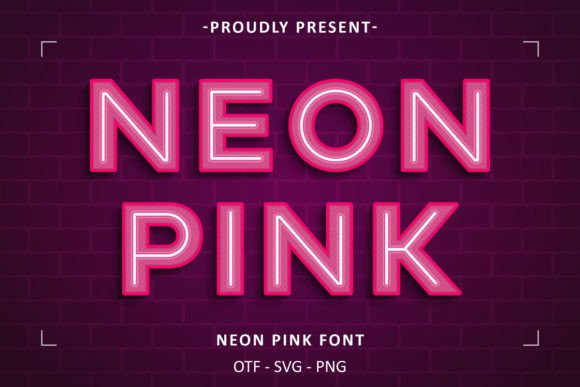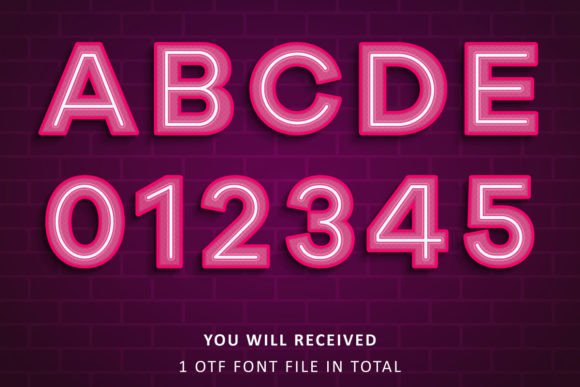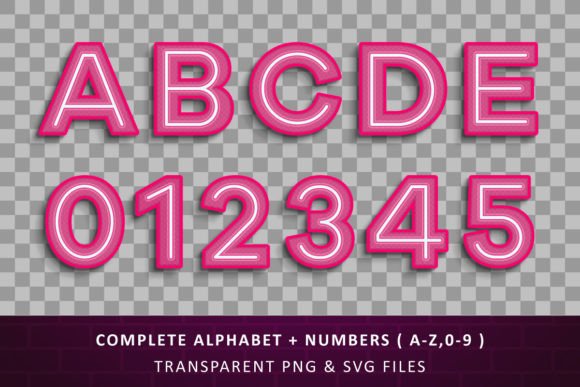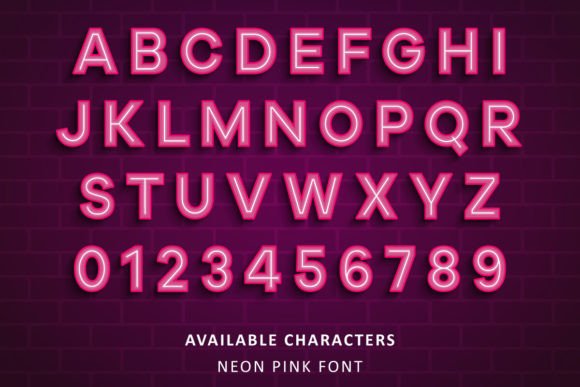
Neon Pink Font
About the Neon Pink Font
Make a bold statement with Neon Pink Font, a powerful and memorable font. Introducing “Neon Pink Font” – This charming font was created with inspiration from pink neon bulbs. Its vivid hues and sleek letterforms capture the essence of urban neon signs, creating a visually striking and modern aesthetic.
Neon Pink Font’s bold, playful energy makes it ideal for headlines, short impactful statements, and branding applications where a vibrant, modern aesthetic is desired. It works exceptionally well for posters, social media graphics, and packaging for products targeting a younger, trend-conscious audience. However, its highly stylized forms are not suitable for body text or extended reading; legibility suffers at smaller sizes.
Pairing Neon Pink Font with a clean sans-serif like Helvetica Neue for body copy provides excellent contrast and readability. For a more playful feel, consider pairing it with a rounded geometric sans-serif. A classic serif font like Garamond could offer sophistication if used sparingly, for instance, in supporting text.
The overall personality is energetic and youthful, lending itself to brands that want to convey a fun, bold, and contemporary image. Avoid using it in contexts requiring serious or formal communication.